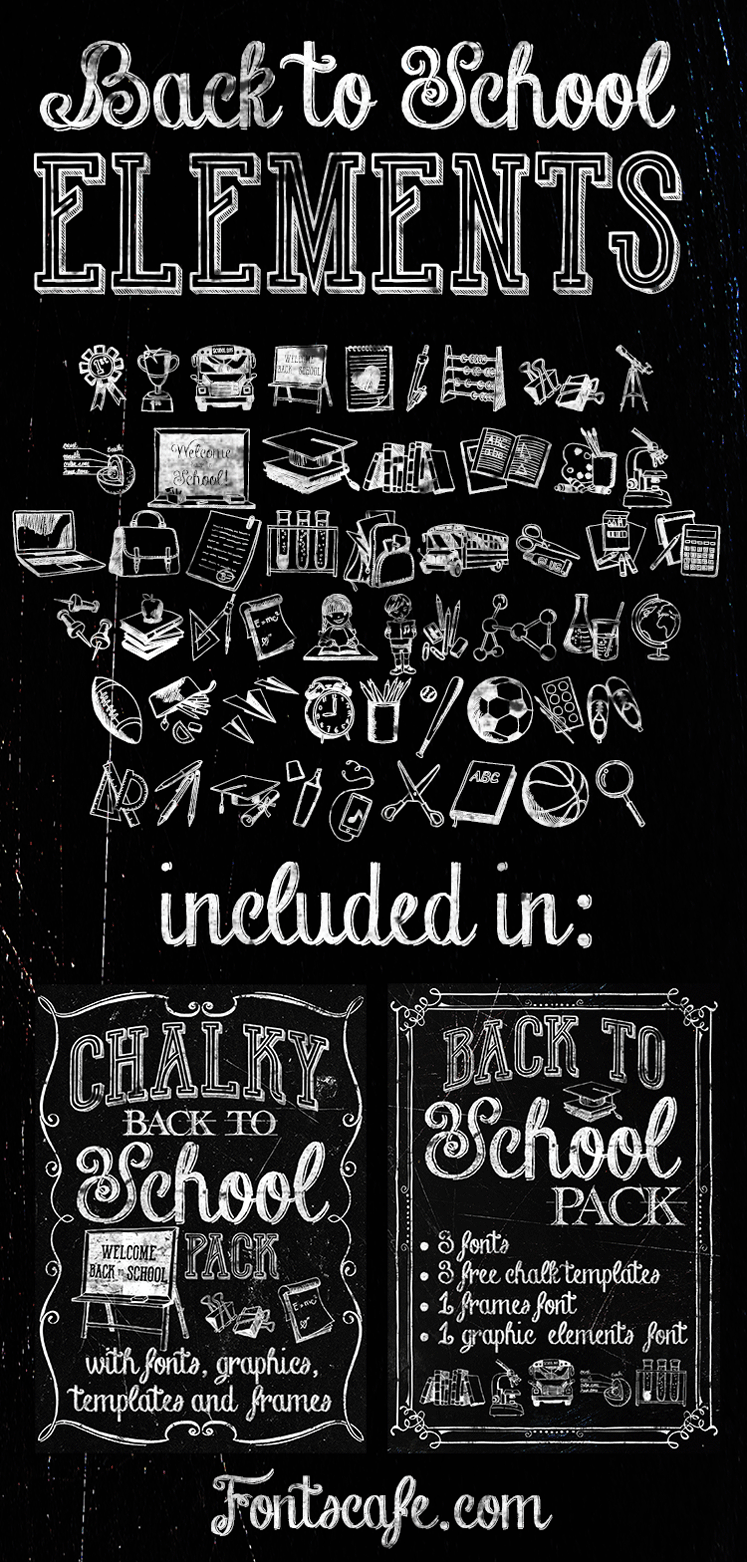
When a fresh school year is on the cards, it might be the right time to think about your next school related project. And what better than a whole ready set of "Back to School Elements" http://fontscafe.com/font/back-school-elements? Well, actually, better than this only the whole "Chalky Back to School PACK"! http://fontscafe.com/font/chalky-back-school-pack FOLLOW US: FACEBOOK: http://www.facebook.com/pages/Fontscafecom/284319378306355 PINTEREST: https://www.pinterest.com/fontscafe/ More fonts on DaFont: http://www.dafont.com/fontscafe-com.d3347 |